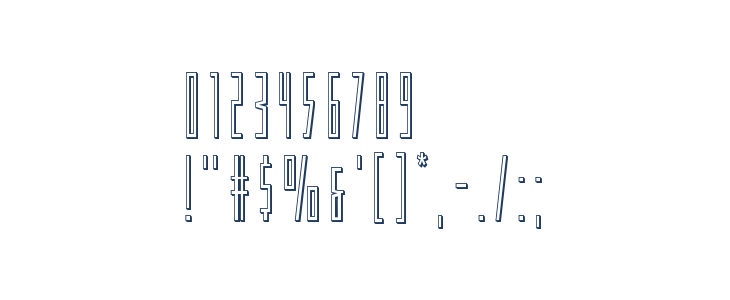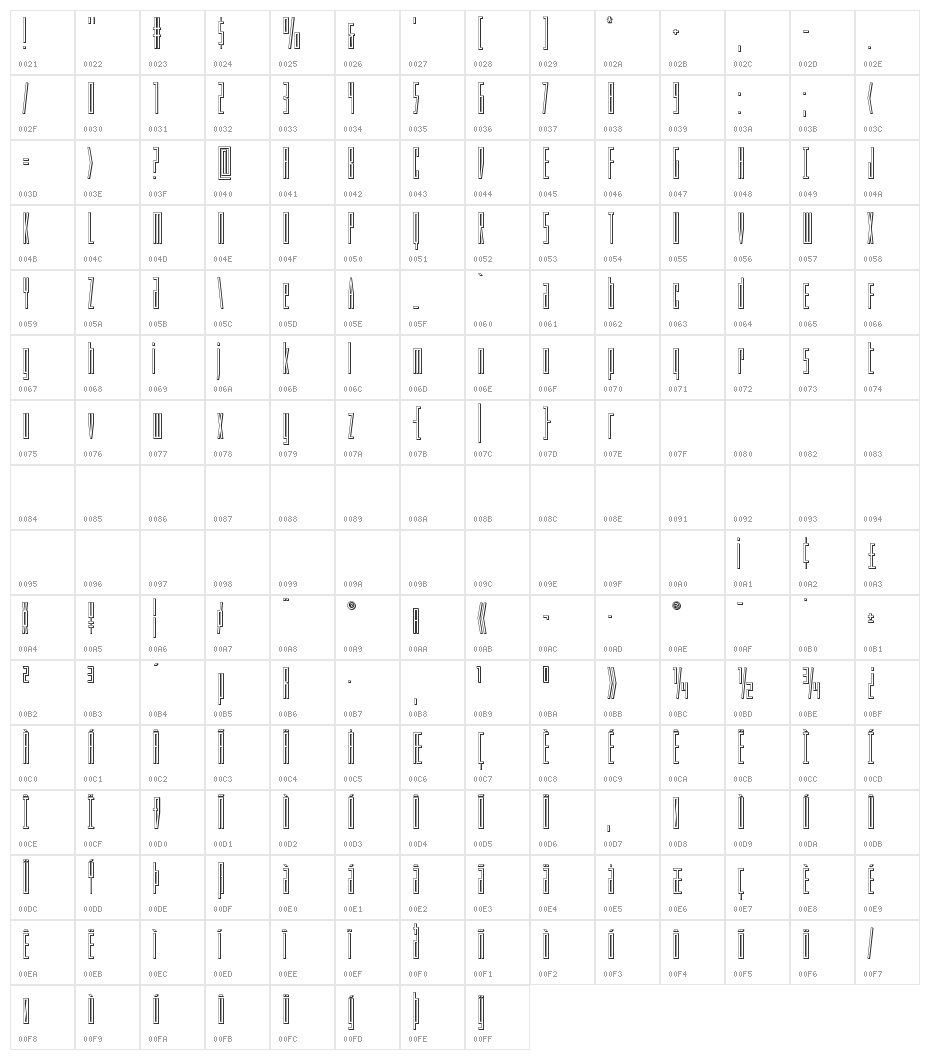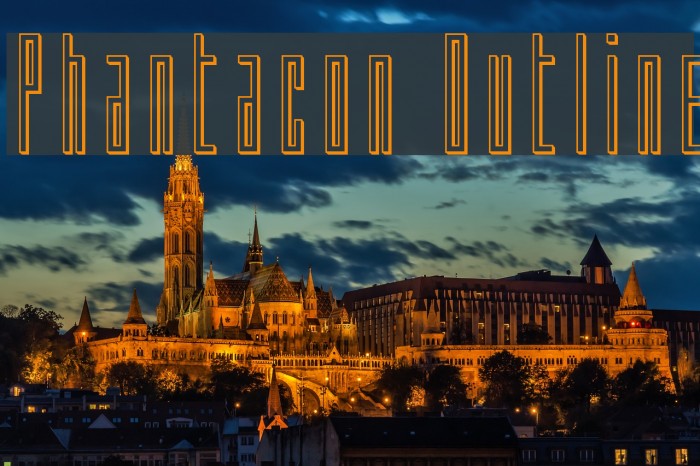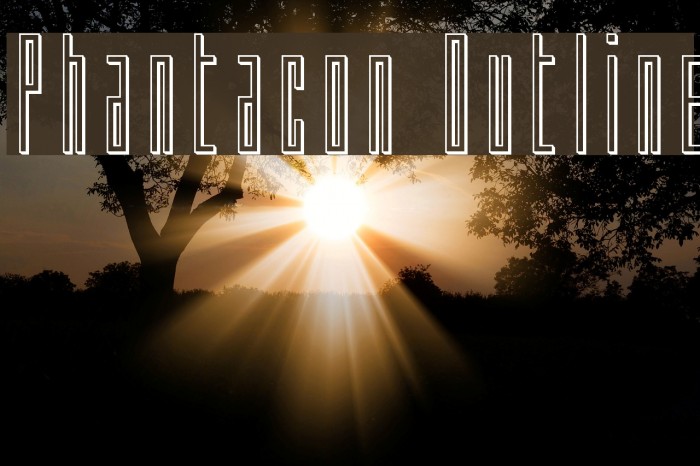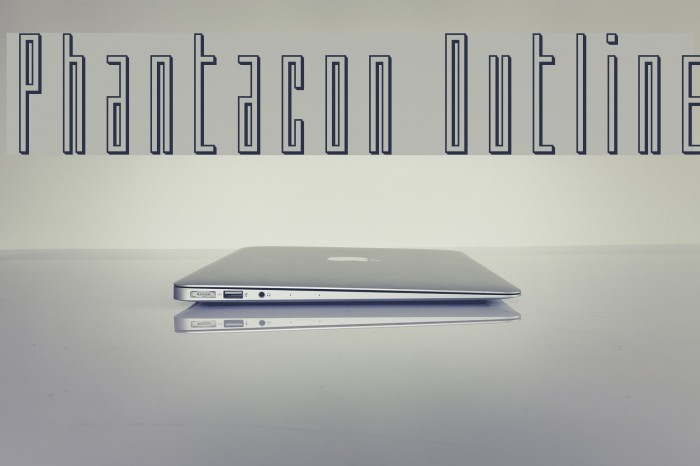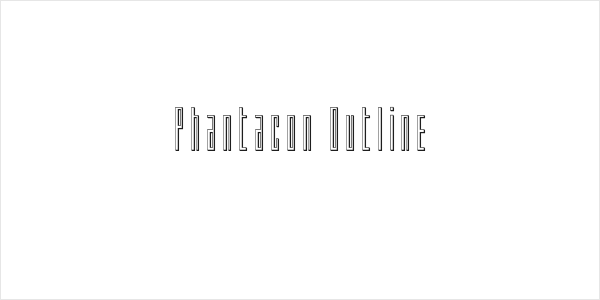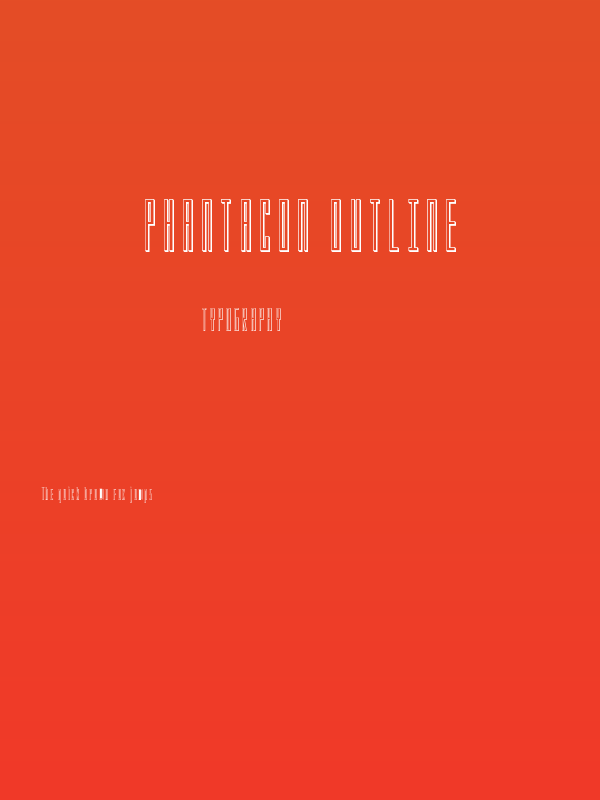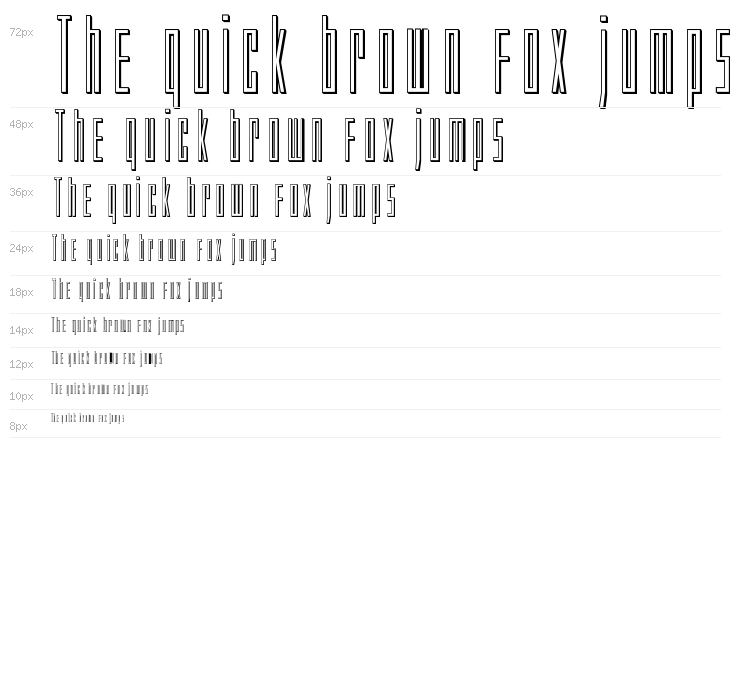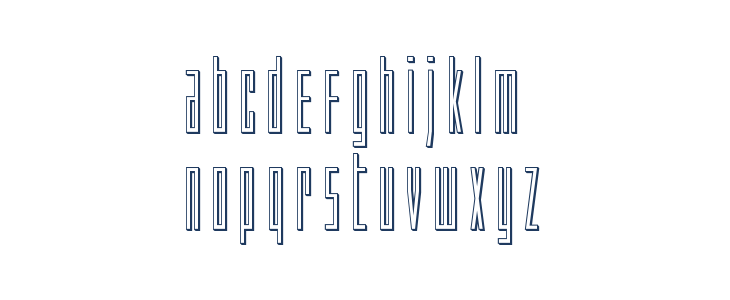
Phantacon Outline Font
Phantacon Outline Description
This font features a distinct outline style with tall, narrow characters that create a striking visual impact. The uppercase and lowercase letters maintain a consistent height, contributing to a cohesive look. The geometric design is accentuated by sharp angles and clean lines, giving it a modern and futuristic feel. The numbers and special characters follow the same design principles, ensuring uniformity across all glyphs. The font's outline nature allows for creative layering and color usage, making it versatile for various design applications.